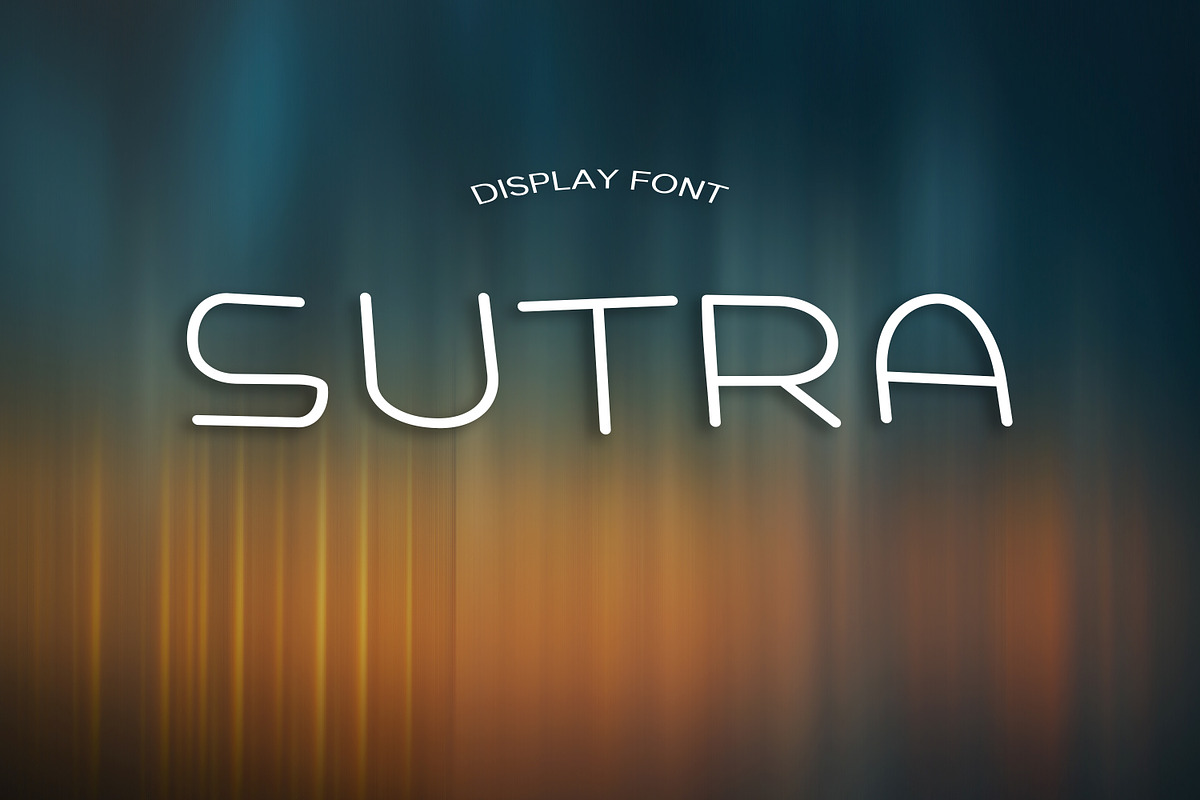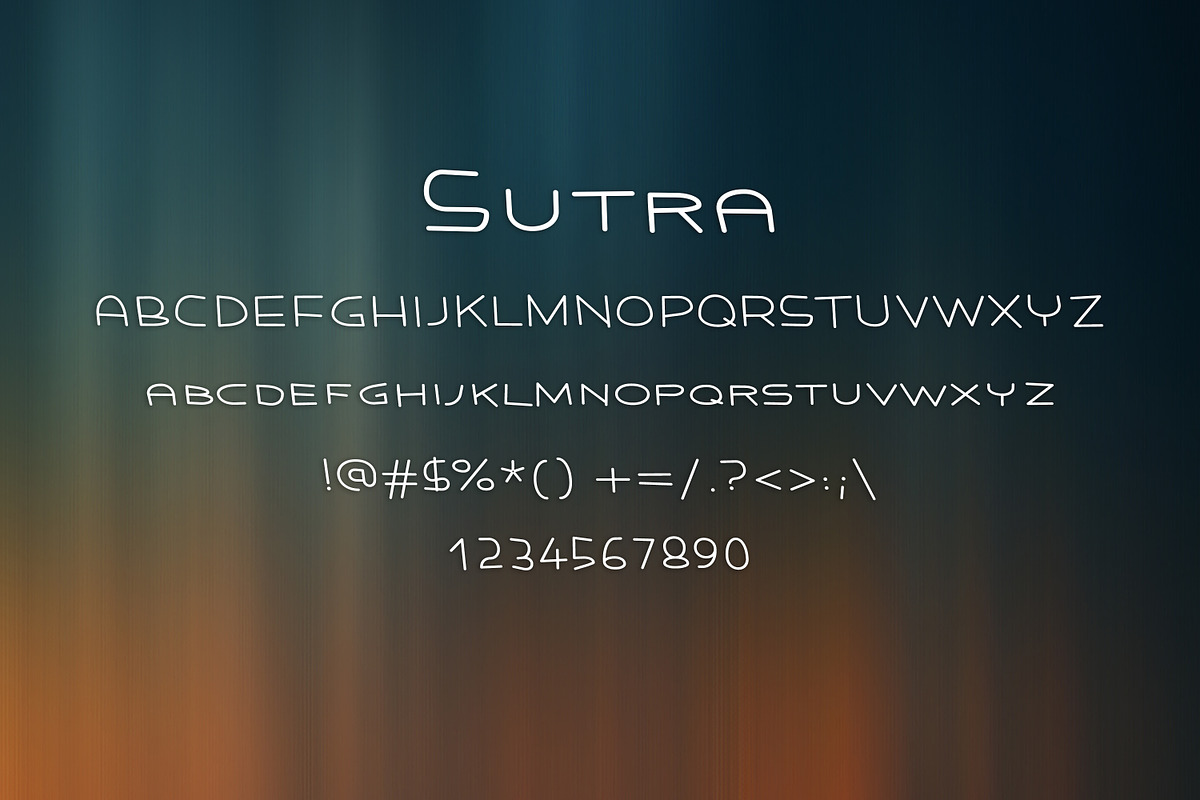
SUTRA font
- Sutra regular
Why SUTRA font is worth a look
SUTRA font by DmDesignsStoreArt fits naturally into Branding, posters, packaging, typography.